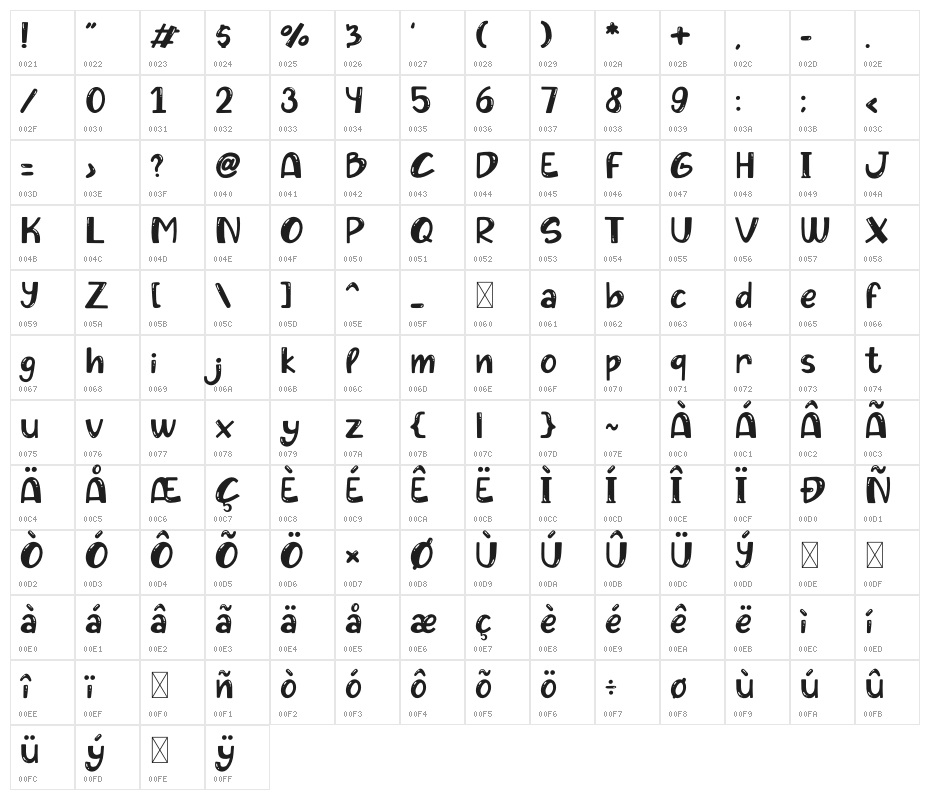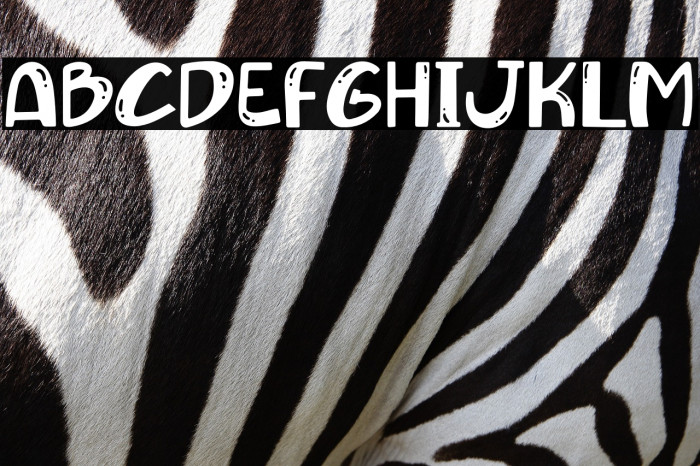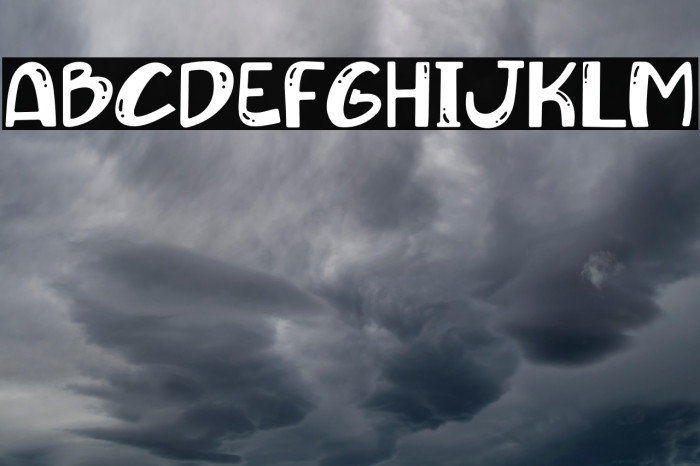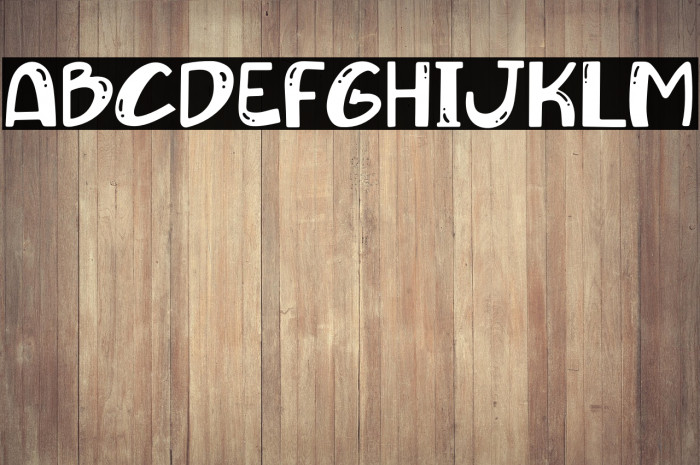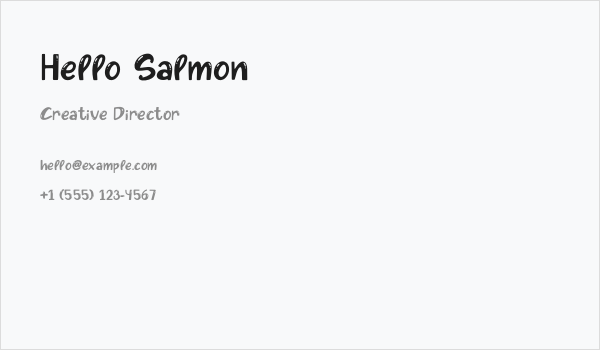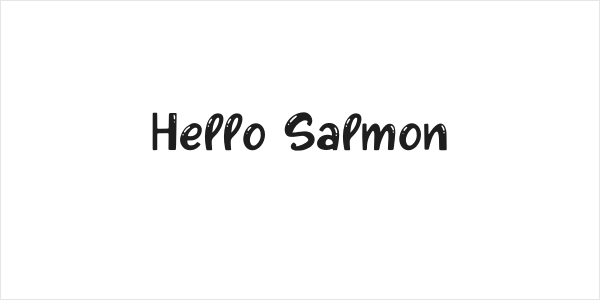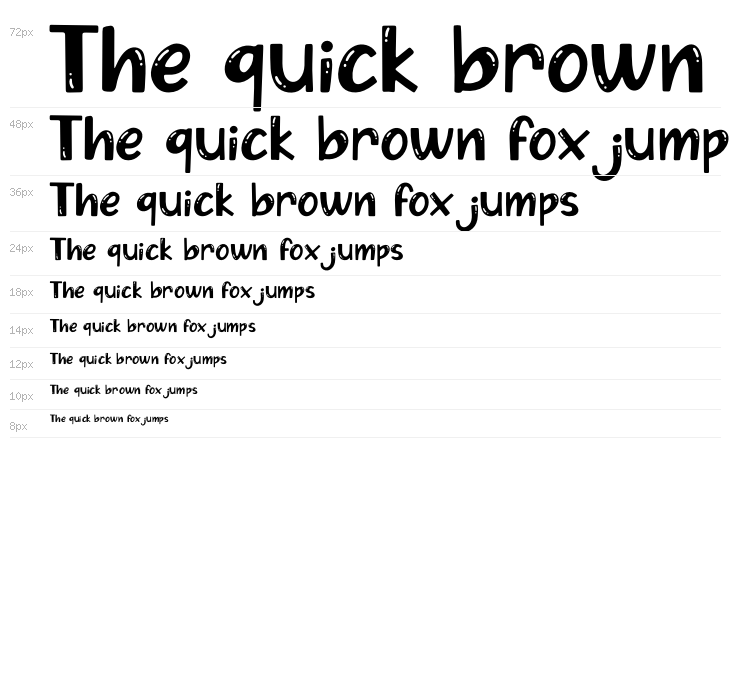
Hello Salmon Font
Hello Salmon Description
This playful and whimsical font features bold, rounded characters with a hand-drawn aesthetic. Each letter is uniquely crafted with irregular strokes and subtle variations, giving it a lively and informal appearance. The font includes both uppercase and lowercase letters, numerals, and a variety of special characters. Its distinctive style is characterized by a slightly uneven baseline and a sense of movement, making it ideal for creative and fun projects. The boldness of the strokes ensures good readability while maintaining a casual and friendly tone.
Proposed ProjectsIdeal for children's books, playful branding, greeting cards, and creative posters.